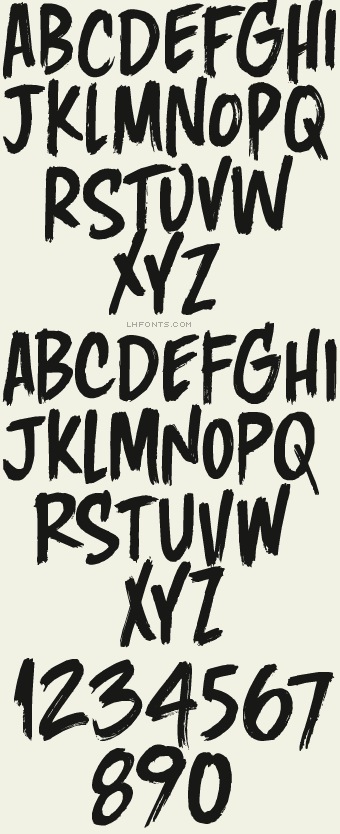
Large and small caps. Alternating uppercase and lowercase by tYpInG LiKe tHiS will create a true hand-lettered appearance. Includes some bonus swashes too (see chart below), full punctuation and accents. You might also like: Basher & Asylum.